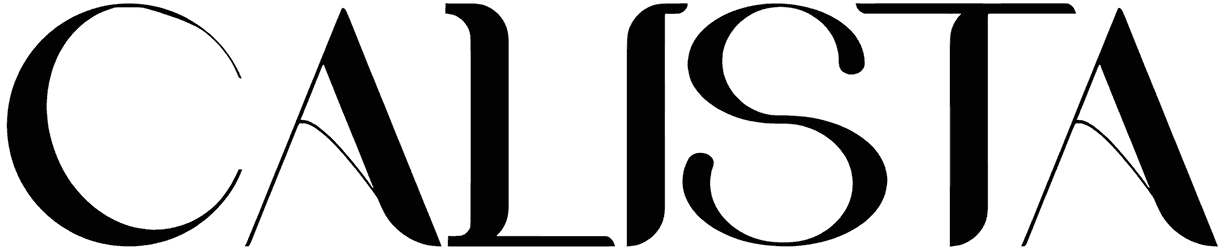
Calista Font
Calista may be your lifesaver if you’re in charge of a mission-critical project. Although this fashion font lacks lowercase letters and number characters, it is still a wonderful option for large-scale print and digital graphics because of its ability to make a strong statement.
This modern serif font’s precise luxury face has given it a fashionable style, making it suitable for usage in album art, movie titles, and video game subtitles. Grab it right now from our extensive collection.
Calista is a trendy and cool serif font. No matter the topic, this font will be an incredible asset to your fonts’ library, as it has the potential to elevate any creation.